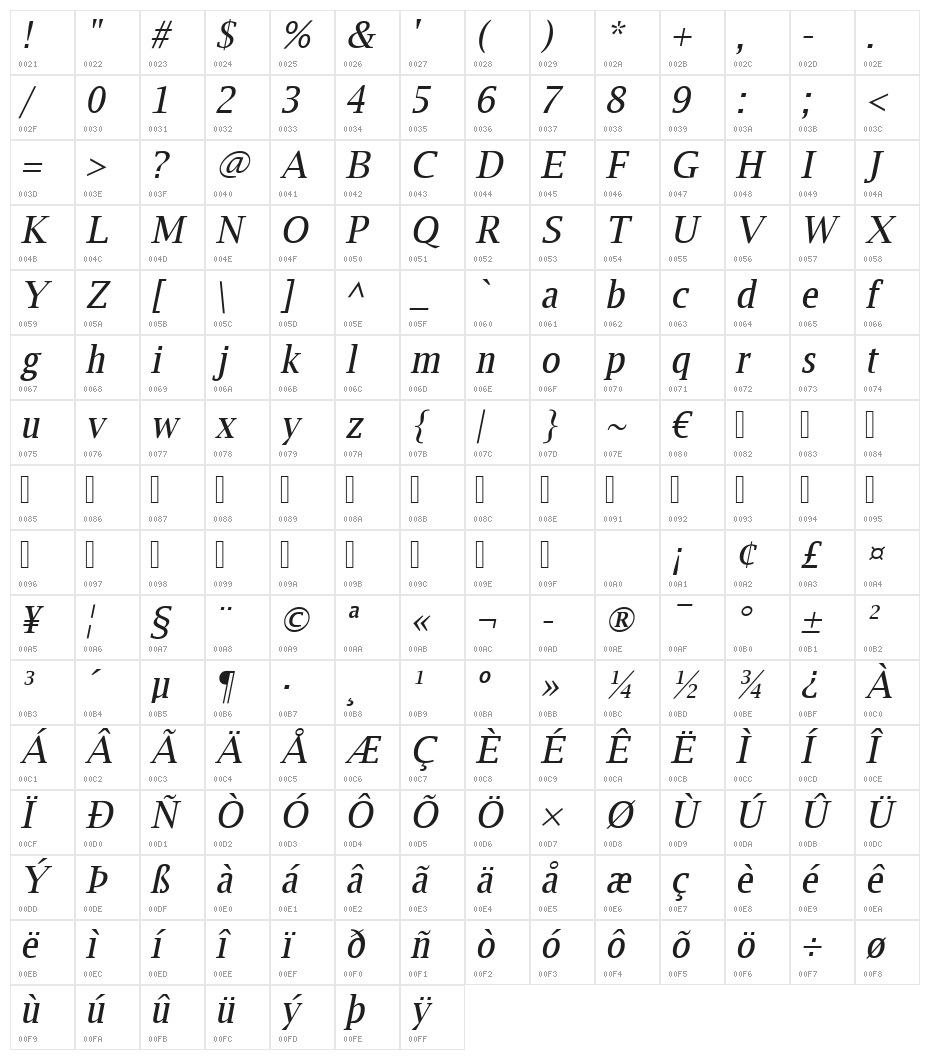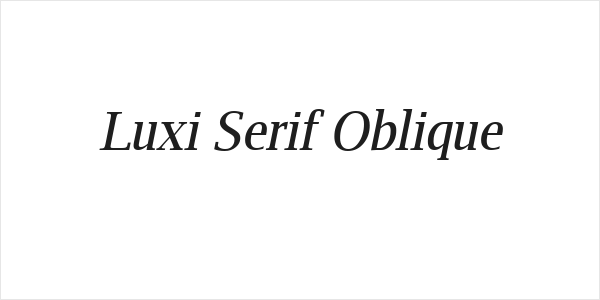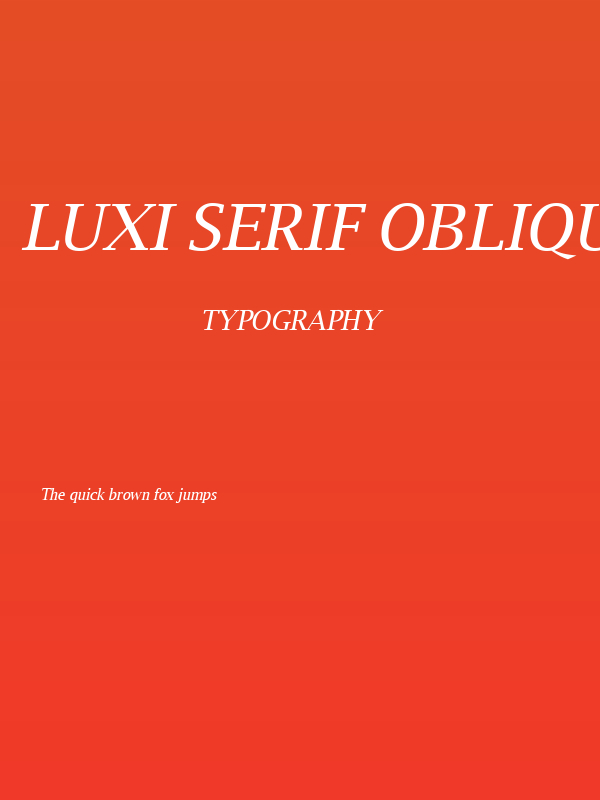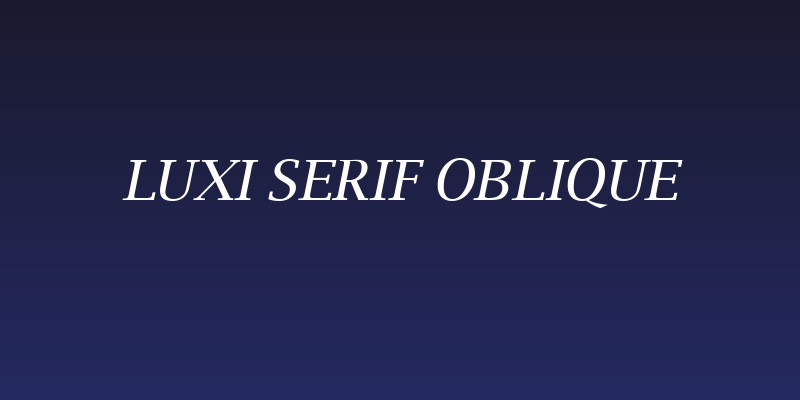
Luxi Serif Oblique Font
Luxi Serif Oblique Description
This font features a classic serif style with an oblique slant, giving it a sophisticated and elegant appearance. The serifs are well-defined, adding a touch of formality and tradition. The characters are slightly condensed, which enhances readability while maintaining a graceful flow. The stroke contrast is medium, providing a balanced look that is neither too bold nor too light. This font is versatile, suitable for both digital and print media, and can be used effectively in various design contexts.